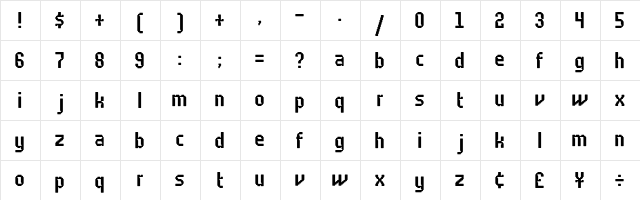
Fodor Regular
Design Context for Fodor Typeface
Fodor is a composed and adaptable typeface that performs quietly and consistently across a wide range of design contexts.